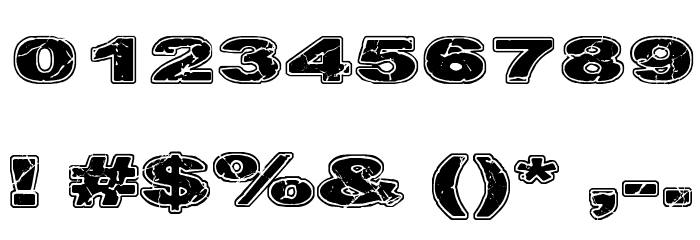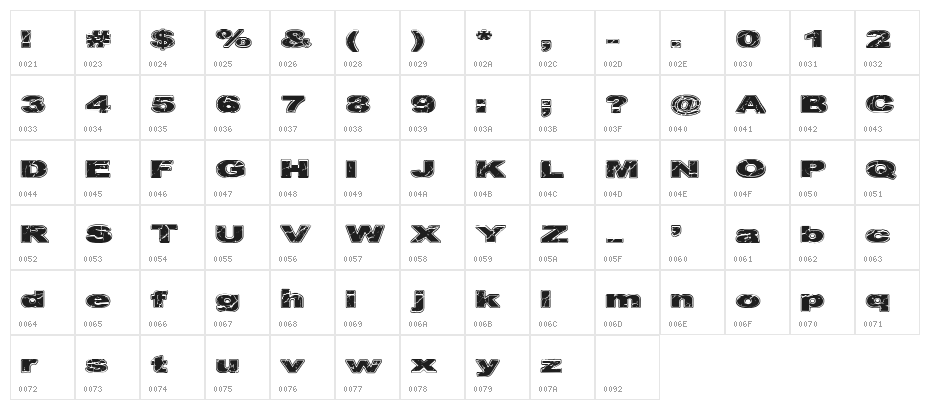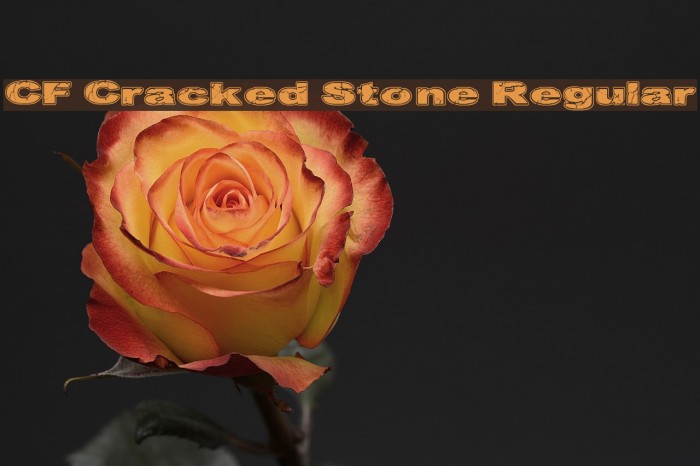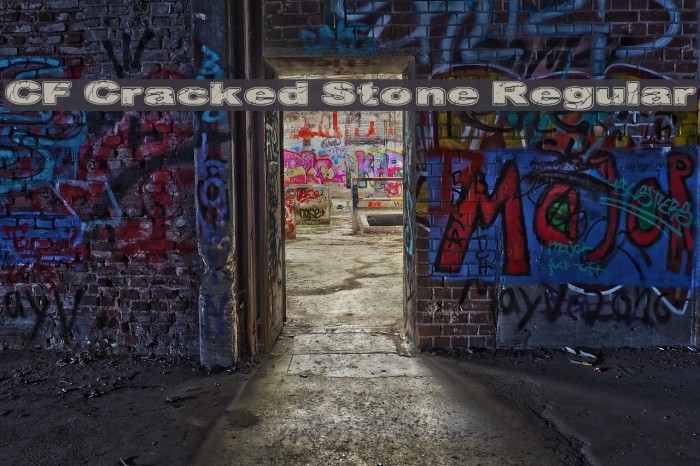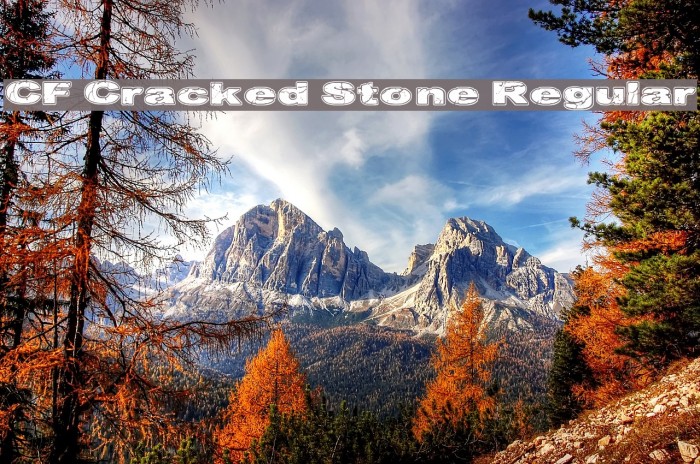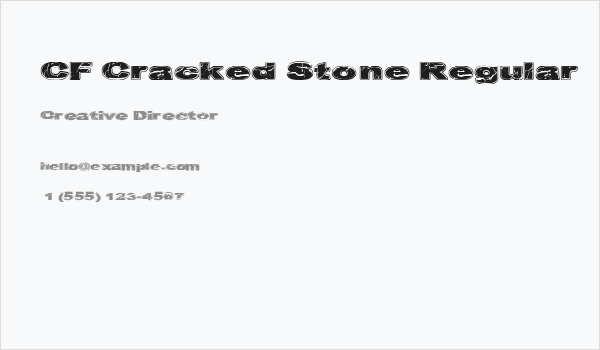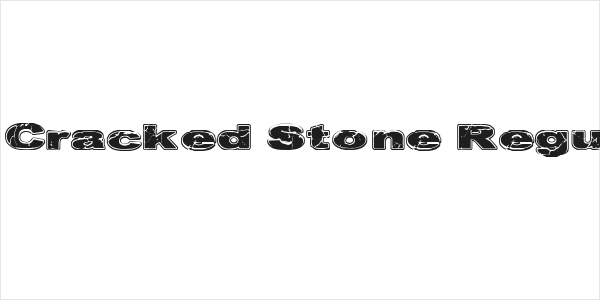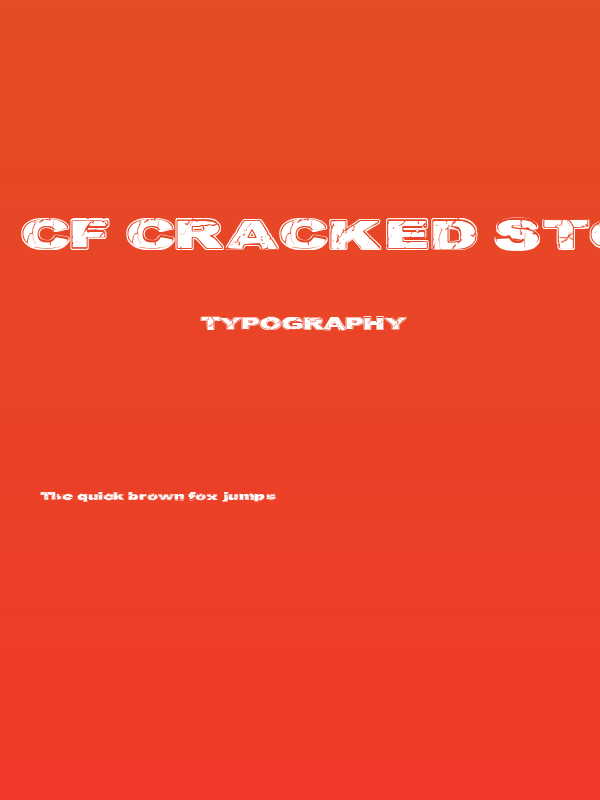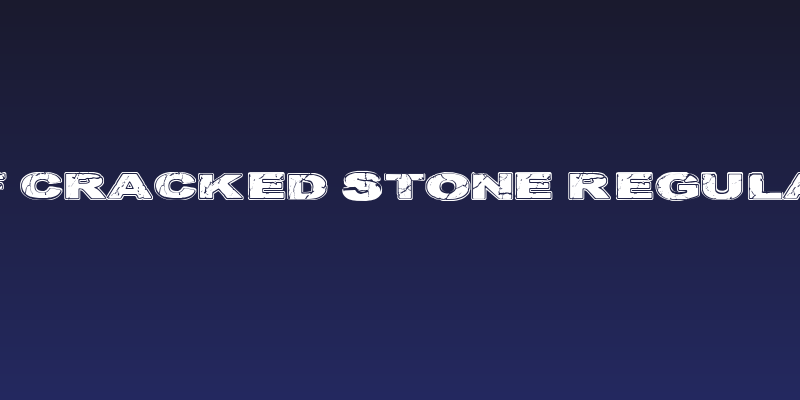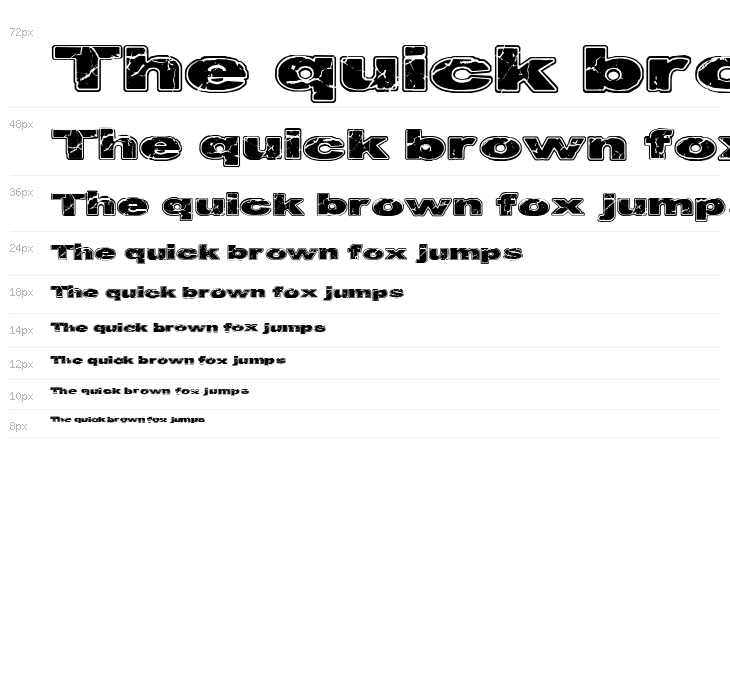
CF Cracked Stone Regular Font
CF Cracked Stone Regular Description
This font features a bold and rugged design with a cracked, stone-like texture that gives it a distressed and weathered appearance. The characters are uppercase and lowercase, with numerals and a selection of special characters. The texture adds a unique, tactile quality, making it stand out in any design. The boldness of the letters ensures readability while the distressed effect adds a creative edge. This font is perfect for projects that require a strong, impactful look with a touch of grunge or vintage style.
| Proposed Projects | Ideal for posters, album covers, branding, and any design needing a bold, distressed look. |